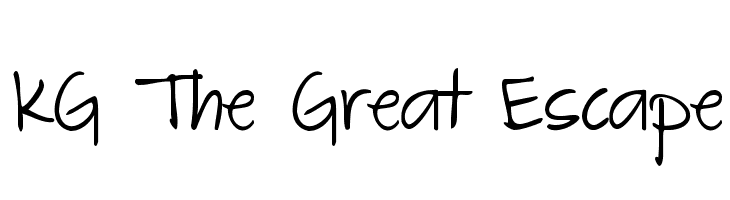
A playful, handwritten font with a casual and whimsical style.
A casual, handwritten font with a playful and expressive style.
A playful, handwritten font with a casual and friendly style.
A playful, whimsical handwritten font with irregular strokes and a casual vibe.
A playful, casual handwritten font with smooth, flowing lines and charming irregularities.
A playful, informal handwritten font with smooth, flowing lines and a cohesive appearance.